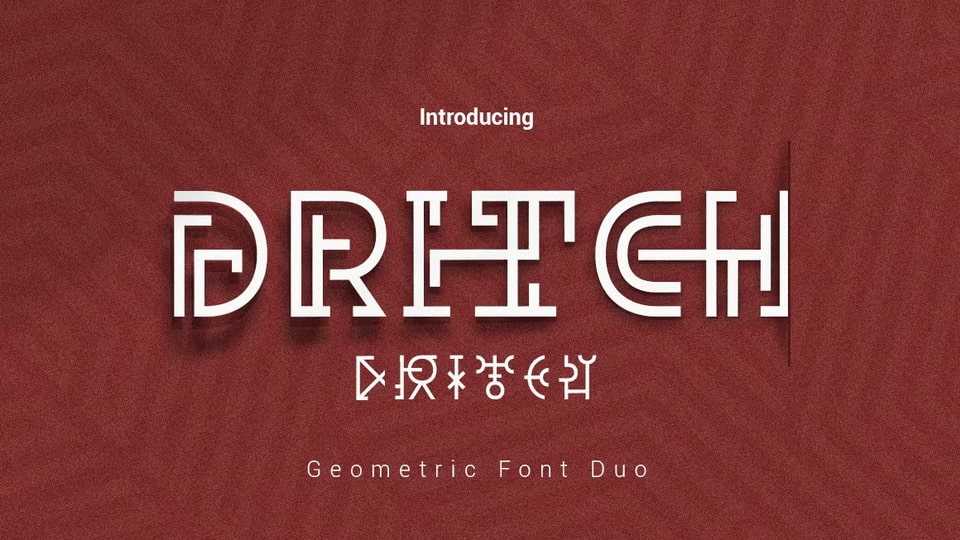
Download Dritch font, a mystical typeface with a unique and modern geometric style. It works with different themes such as mystical, tribal, ethnic, magical, and fantasy.